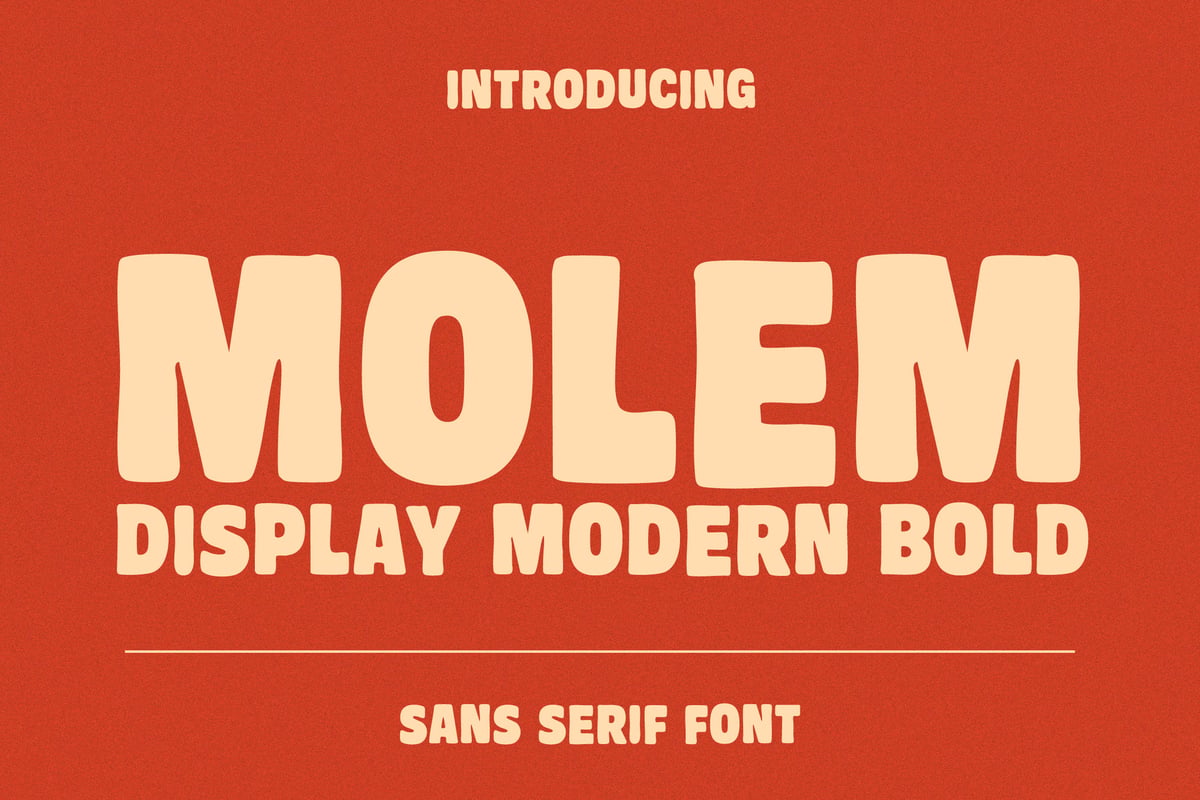
Molem – Bold Retro Display Sans Serif Font
Molem is the bold, rounded retro display font that makes every headline impossible to ignore.
With thick, soft letterforms and a strong vintage personality, Molem brings instant character to any project. Its playful yet professional style sits perfectly at the intersection of retro charm and modern design sensibility.
Molem is built for high-impact use across a wide range of creative projects, including:
- Headlines and editorial layouts
- Posters and promotional print materials
- Children's content and publications
- Logos and wordmarks
- Product packaging and visual branding
The typeface includes a full character set with uppercase, lowercase, numerals, punctuation, and multilingual support — making it versatile for both print and digital media.